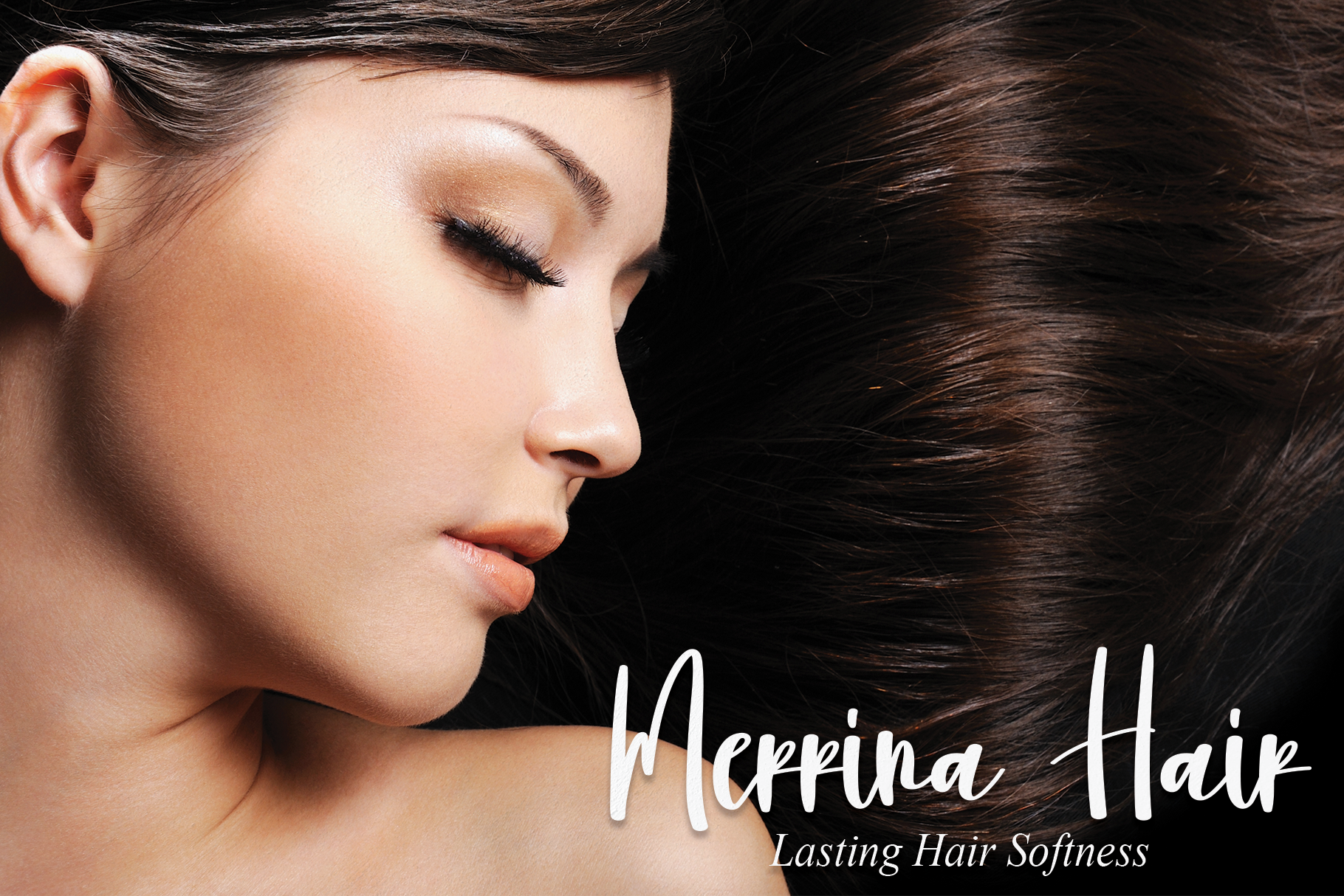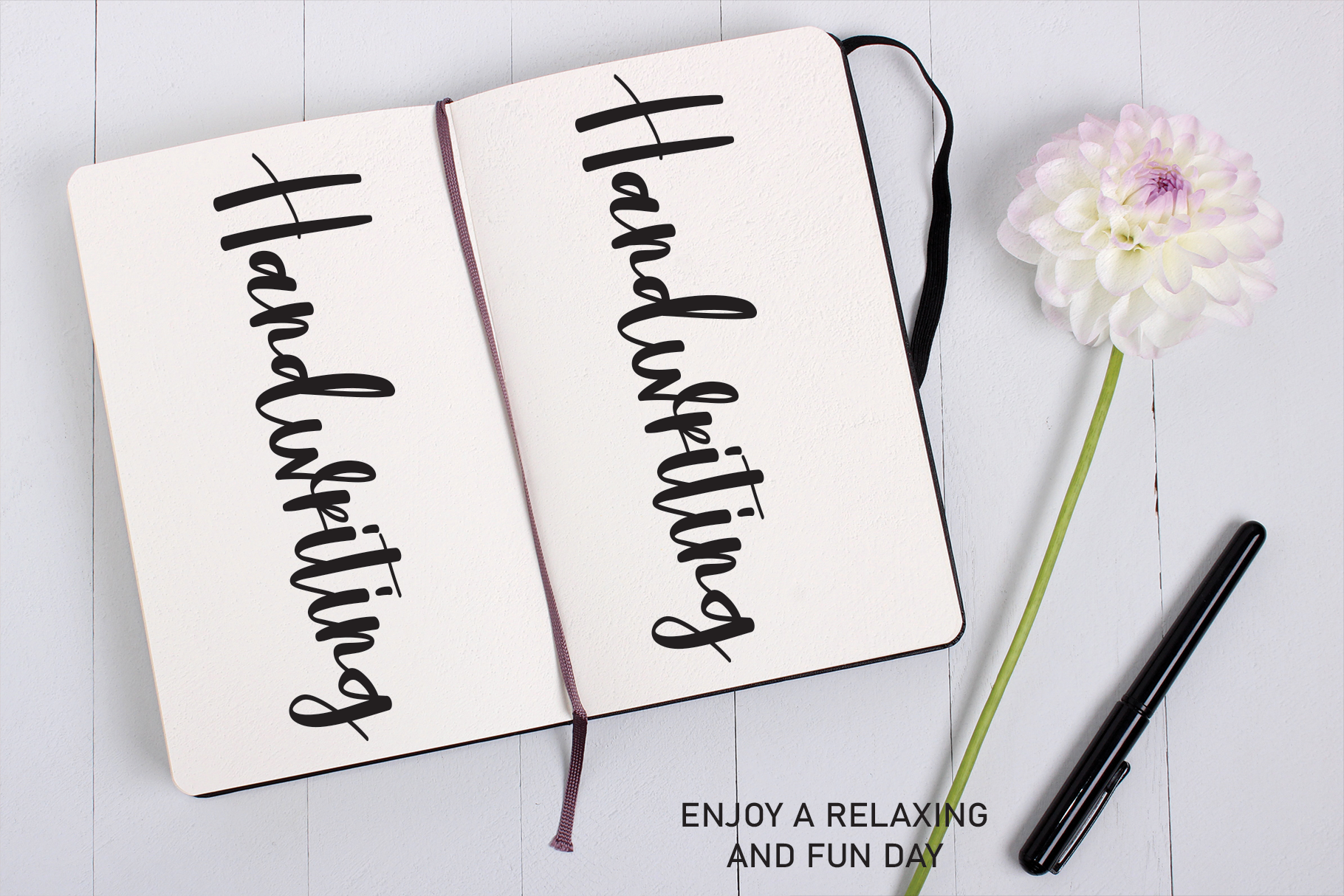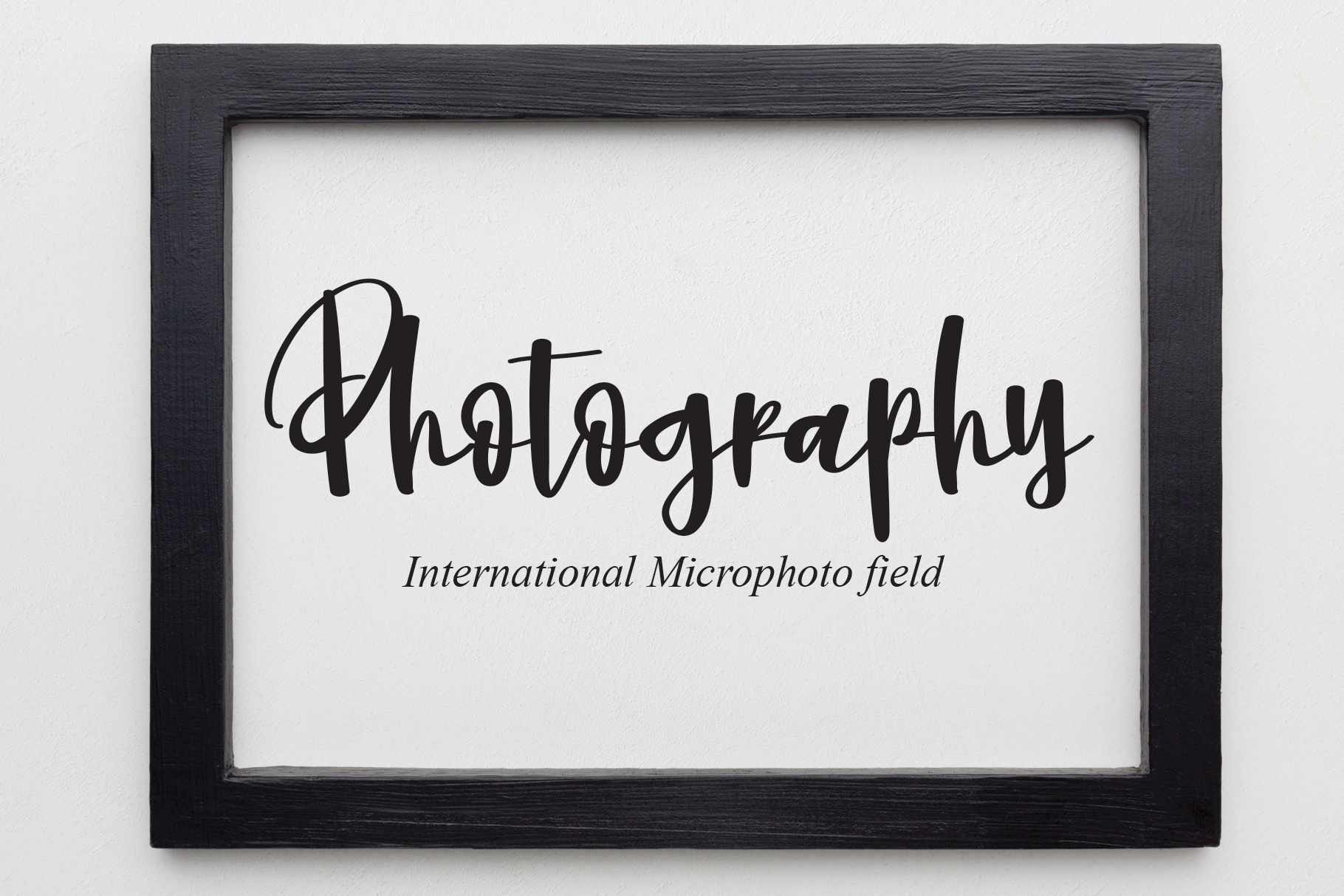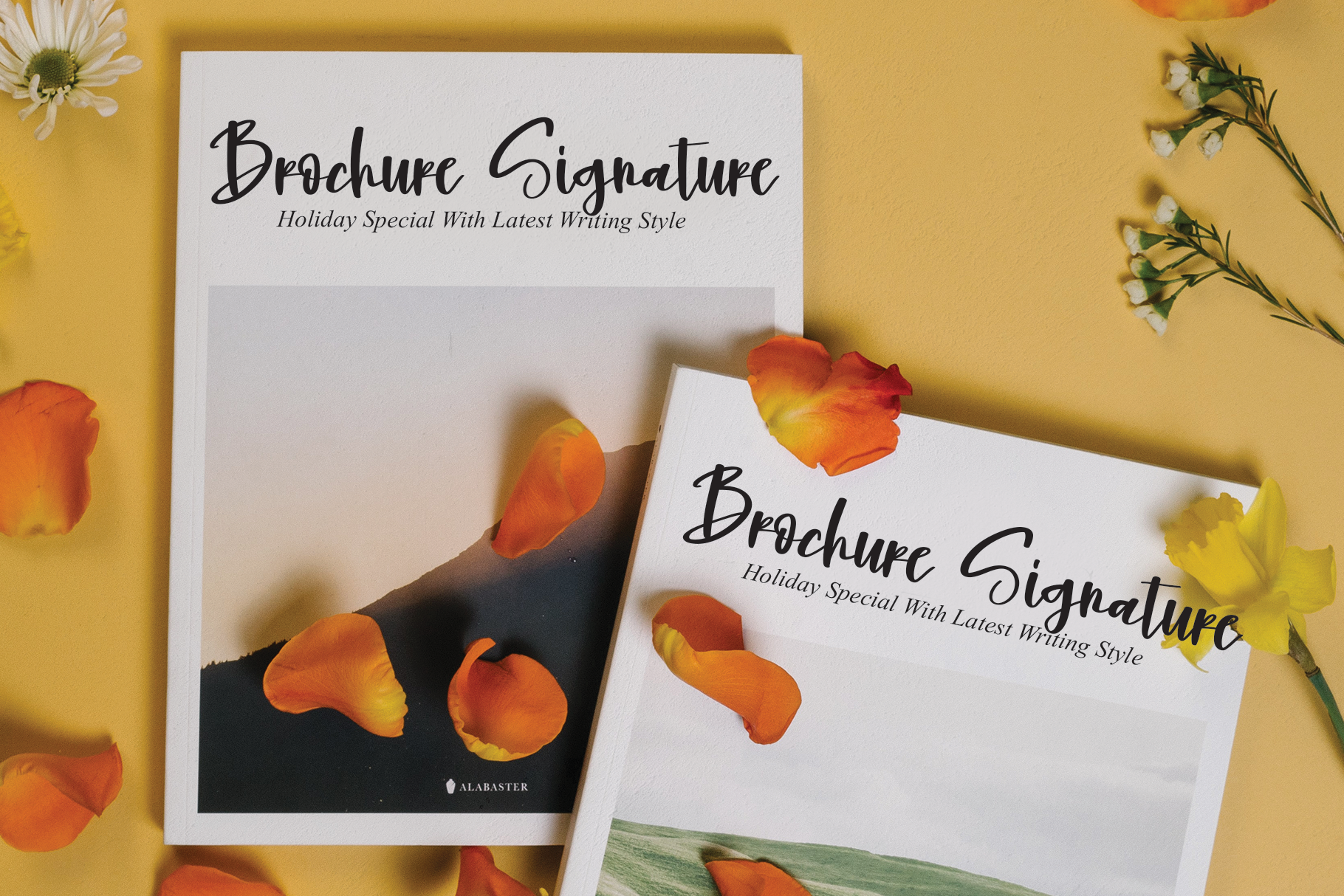
Jim Signature Font
Jim Signature Script Font
This is an exquisite handwritten font, masterfully designed to become a true favorite. It maintains its classy calligraphic influences while feeling contemporary and fresh. Fall in love with it and bring your projects to the highest levels!
the latest style letters are perfect for wall displays, wedding invitations, social media post logos, advertisements, product packaging, product designs, labels, photography, watermarks, invitations, stationery, and any project that requires taste handwriting.